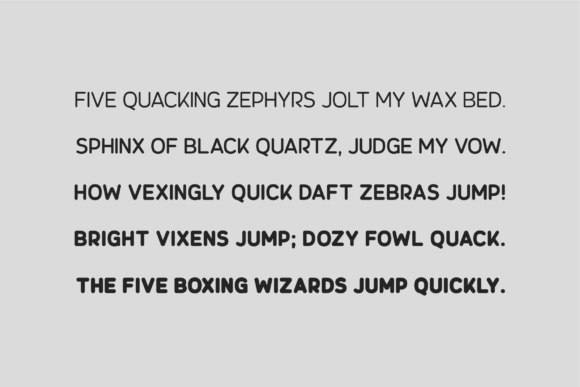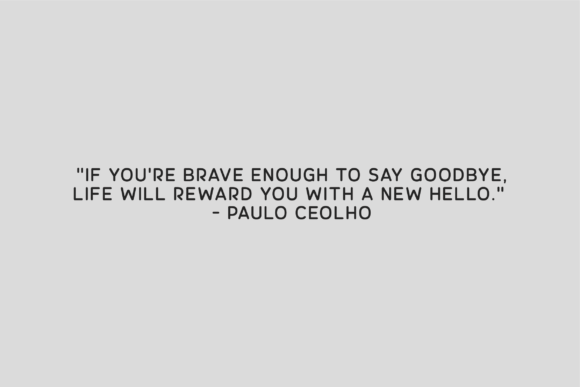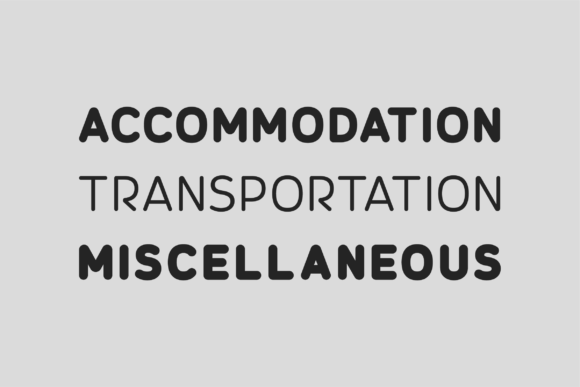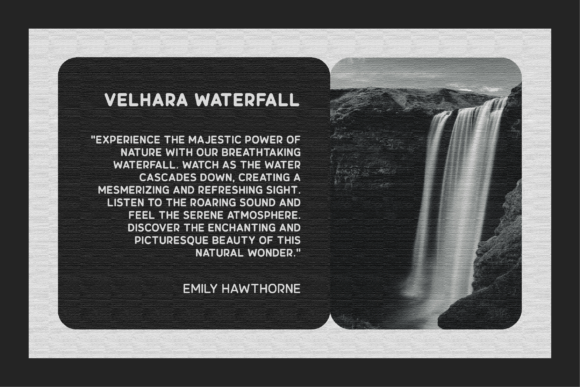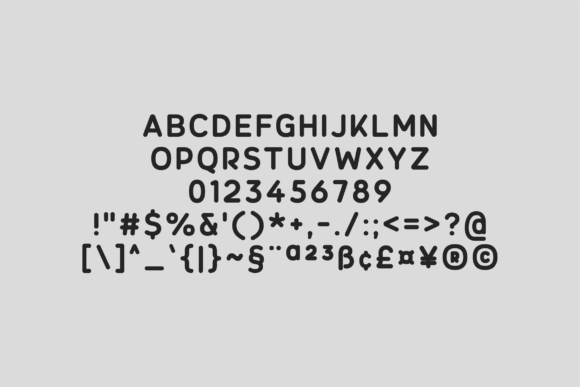
Introducing Converta Rounded: The Ultimate Sans Serif Font for Timeless Designs
In the world of typography, a font can make or break a design. It’s the perfect blend of form and function, where aesthetics meet readability. For designers and crafters seeking a font that embodies sophistication and simplicity, look no further than Converta Rounded. This exquisite sans serif font is crafted with utmost precision, effortlessly enhancing any project, whether it be a magazine, logo, or film poster.
The Perfect Balance of Sophistication and Simplicity
Converta Rounded strikes the perfect balance between sophistication and simplicity, making it an ideal choice for designers who want to create timeless designs. The font’s rounded edges and clean lines evoke a sense of elegance, while its simplicity ensures that it remains versatile and easy to read. This balance is crucial in design, as it allows the font to adapt to various contexts without compromising its visual appeal.
Key Features of Converta Rounded
- Exquisite Design: Converta Rounded boasts a unique and refined design, making it perfect for high-end projects that require a touch of sophistication.
- Sans Serif Elegance: The font’s sans serif design ensures that it remains clean and modern, while its rounded edges add a touch of warmth and approachability.
- High Readability: Converta Rounded is designed to be highly readable, making it perfect for body text, headings, and titles.
- Versatility: The font’s simplicity and elegance make it suitable for a wide range of projects, from magazines and logos to film posters and packaging.
Why Choose Converta Rounded?
With so many fonts available, why choose Converta Rounded? Here are a few compelling reasons:
- Timeless Appeal: Converta Rounded’s classic design ensures that it will remain relevant for years to come, making it a great investment for designers and crafters.
- Easy to Pair: The font’s simplicity makes it easy to pair with other fonts, allowing designers to create harmonious and visually appealing combinations.
- Support for Multiple Languages: Converta Rounded supports multiple languages, making it a great choice for international projects.
Tips for Using Converta Rounded
To get the most out of Converta Rounded, here are a few tips:
- Use it as a Headline Font: Converta Rounded’s elegance and sophistication make it perfect for headlines and titles.
- Pair it with a Serif Font: Pairing Converta Rounded with a serif font can create a beautiful contrast and add visual interest to your design.
- Experiment with Font Sizes: Converta Rounded’s high readability makes it suitable for a range of font sizes, from small body text to large headlines.
In conclusion, Converta Rounded is an exquisite sans serif font that offers the perfect balance of sophistication and simplicity. Its timeless appeal, versatility, and high readability make it an ideal choice for designers and crafters seeking to create stunning designs. Whether you’re working on a magazine, logo, or film poster, Converta Rounded is sure to elevate your project and leave a lasting impression.